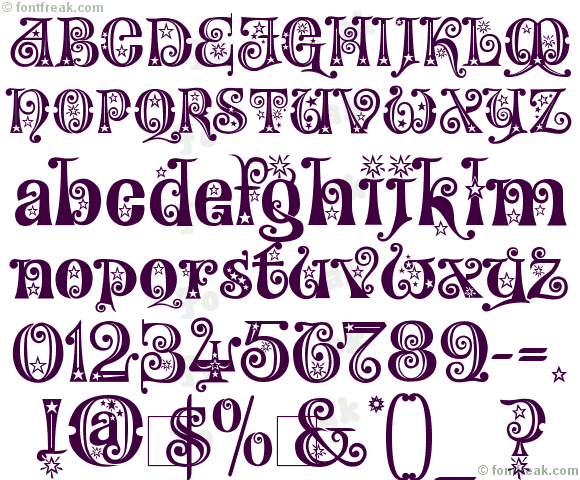
Kingthings Willowless
Kingthings Willow
About Willow
The Willow font, created by Kevin King in 2007, is a captivating decorative typeface that beautifully combines whimsy with elegance. This freeware font is characterized by its unique, flowing letterforms that evoke a sense of creativity and playfulness. Willow features a moderate stroke weight and a pleasing contrast that allows for legibility while still being visually striking. The generous spacing between characters enhances readability and adds to the font's airy aesthetic. Decorative elements such as swirls and curls embellish the letters, making each character a piece of art in itself.
This font is particularly well-suited for a variety of design applications. Its enchanting style makes it an excellent choice for wedding invitations, where it can convey romance and sophistication. Additionally, Willow's artistic flair makes it ideal for movie posters, especially for films in the fantasy or whimsical genre. Restaurant menus can also benefit from this font, as it adds a touch of elegance that can elevate the dining experience. Furthermore, content creators and graphic designers can use Willow to enhance social media graphics, giving their posts a distinctive look that captures attention.
Targeted towards graphic designers, small business owners, and content creators, Willow provides an opportunity to stand out in a crowded marketplace. Its unique style caters to those looking for a font that not only communicates but also adds character to their projects.
What sets the Willow font apart is its ability to blend artistry with functionality. It offers a refreshing alternative to more traditional typefaces, allowing users to express their creativity while maintaining clarity. The Willow font free download is an accessible option for anyone looking to infuse their designs with a sense of charm and individuality.